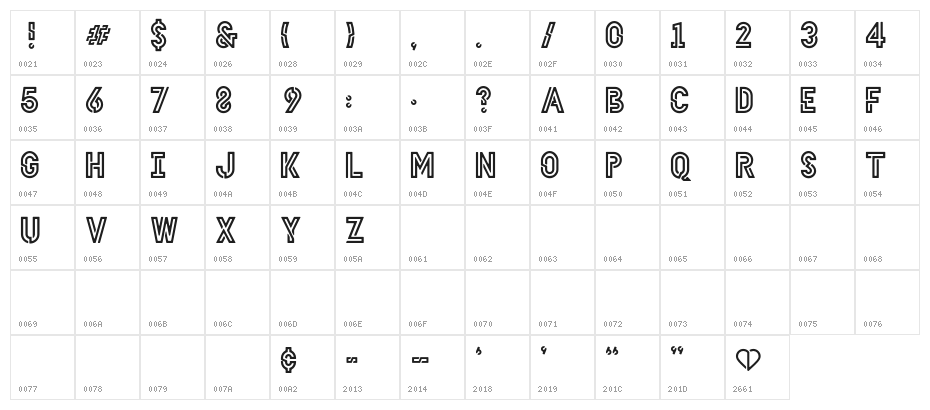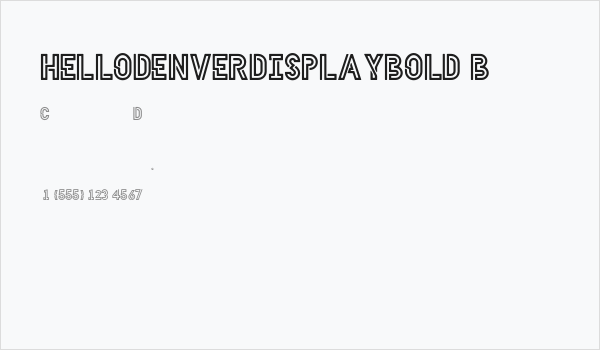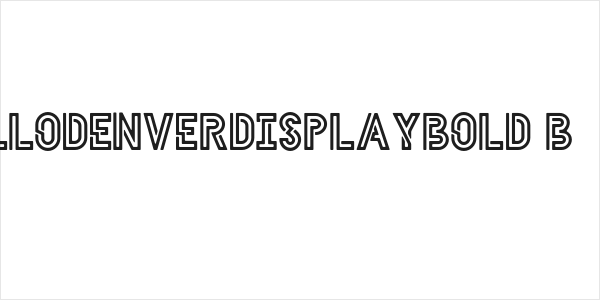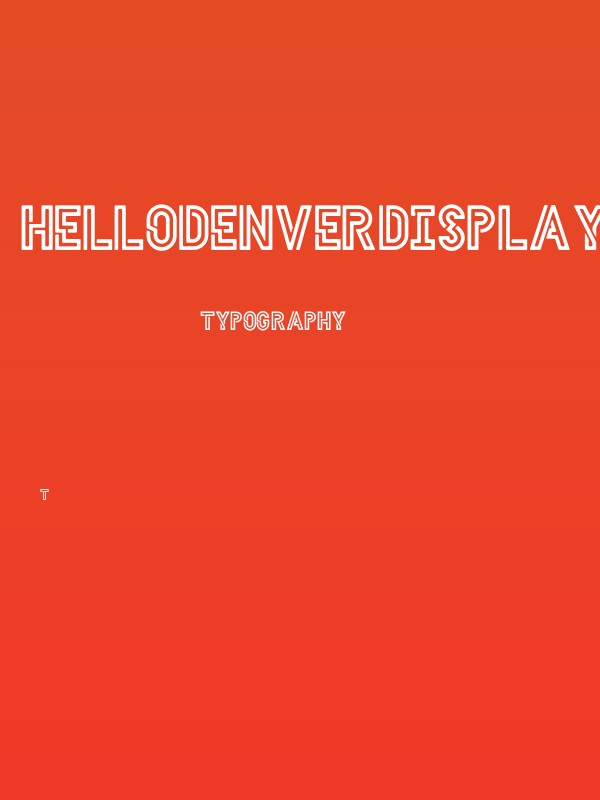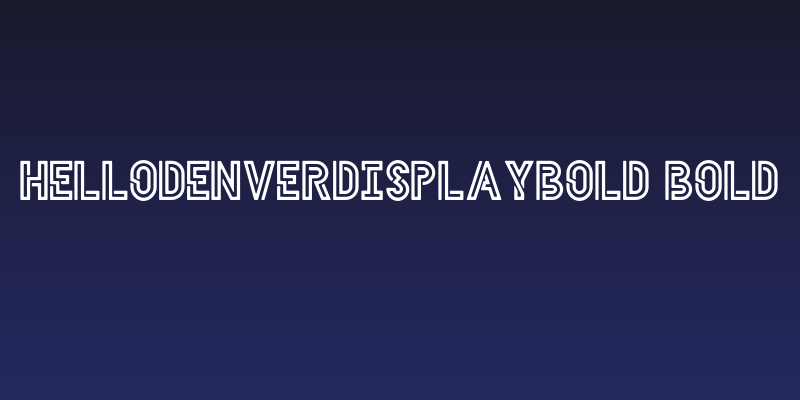
HELLODENVERDISPLAYBOLD-Bold Font
HELLODENVERDISPLAYBOLD-Bold Description
This typeface features a bold, geometric design with a strong, modern aesthetic. The characters are outlined, giving them a hollow appearance that adds depth and dimension. Each letter and number is crafted with precision, showcasing clean lines and consistent stroke widths. The style is distinctly decorative, making it ideal for eye-catching displays. The uppercase letters are uniform in height, while the numbers maintain a similar width, ensuring a cohesive look across all characters. Special characters are included, each designed to match the bold, outlined style of the alphabet and numerals.